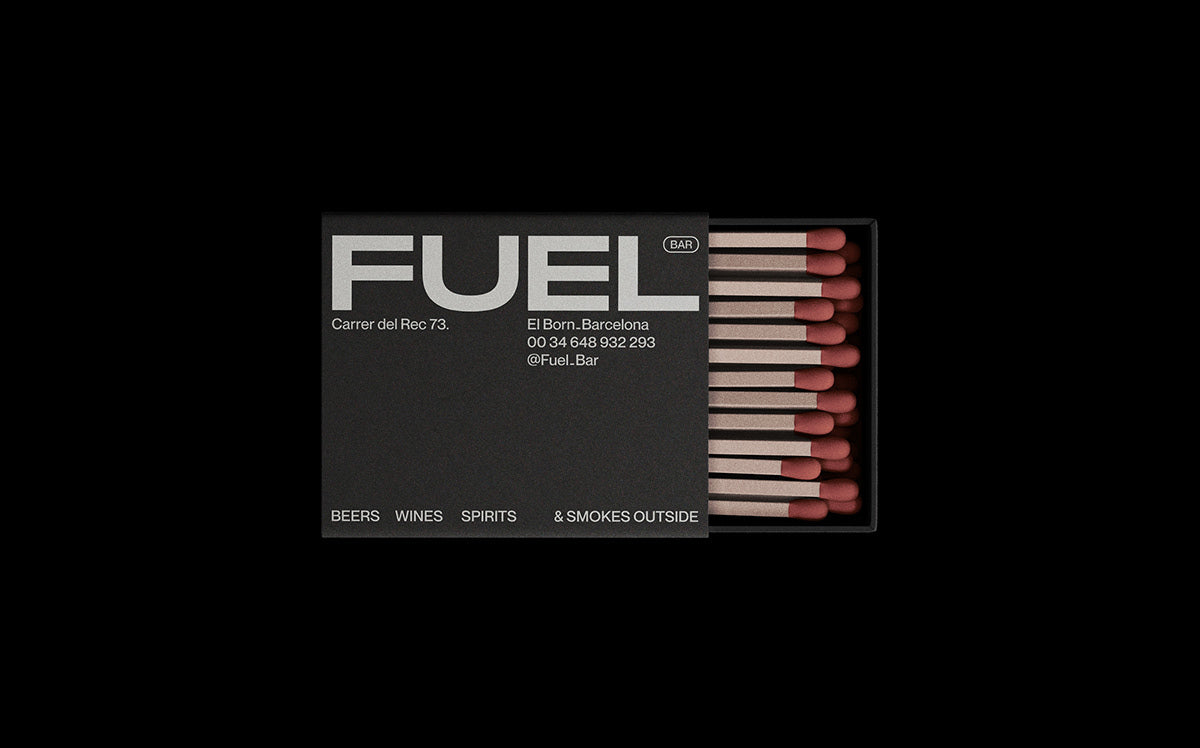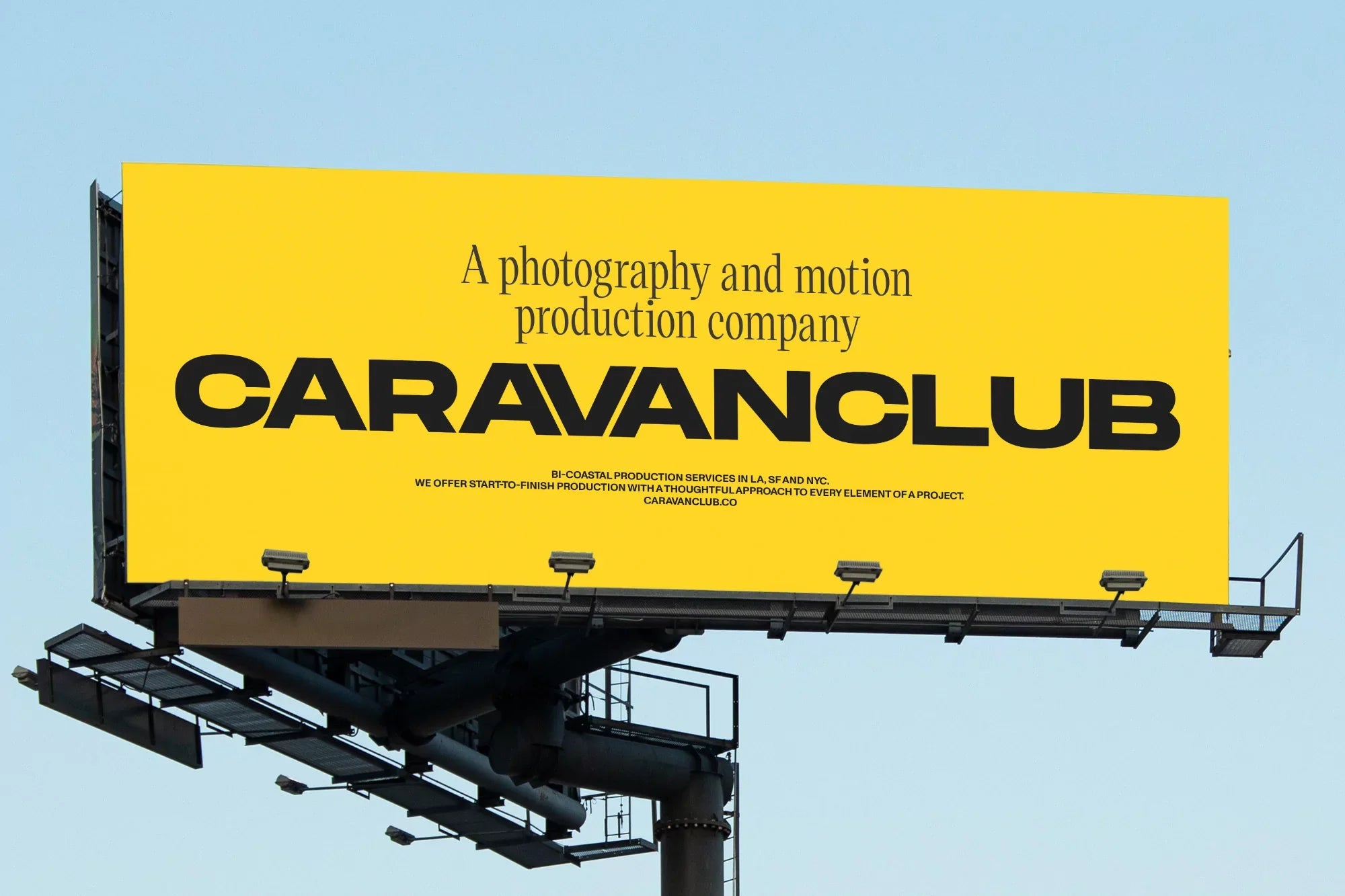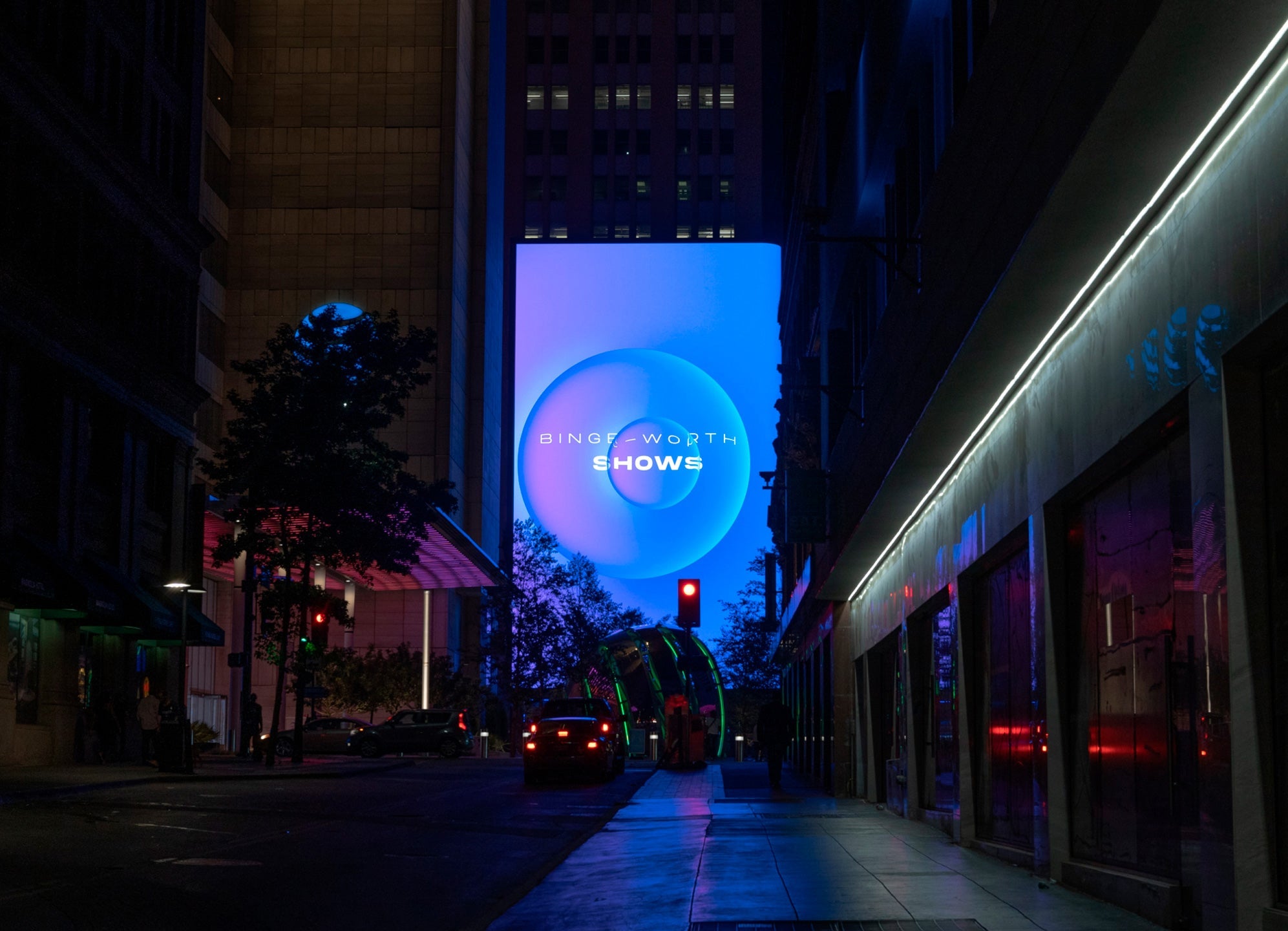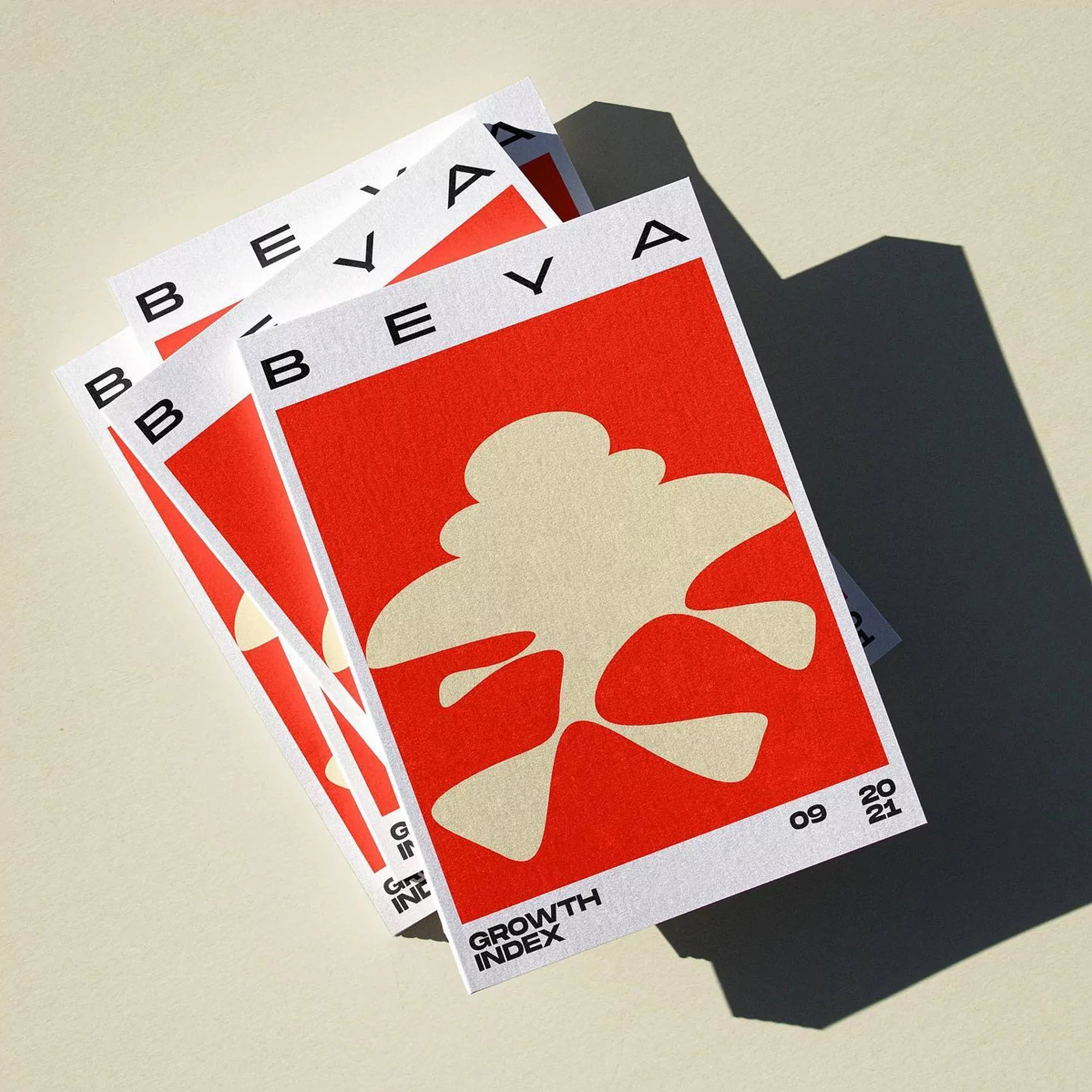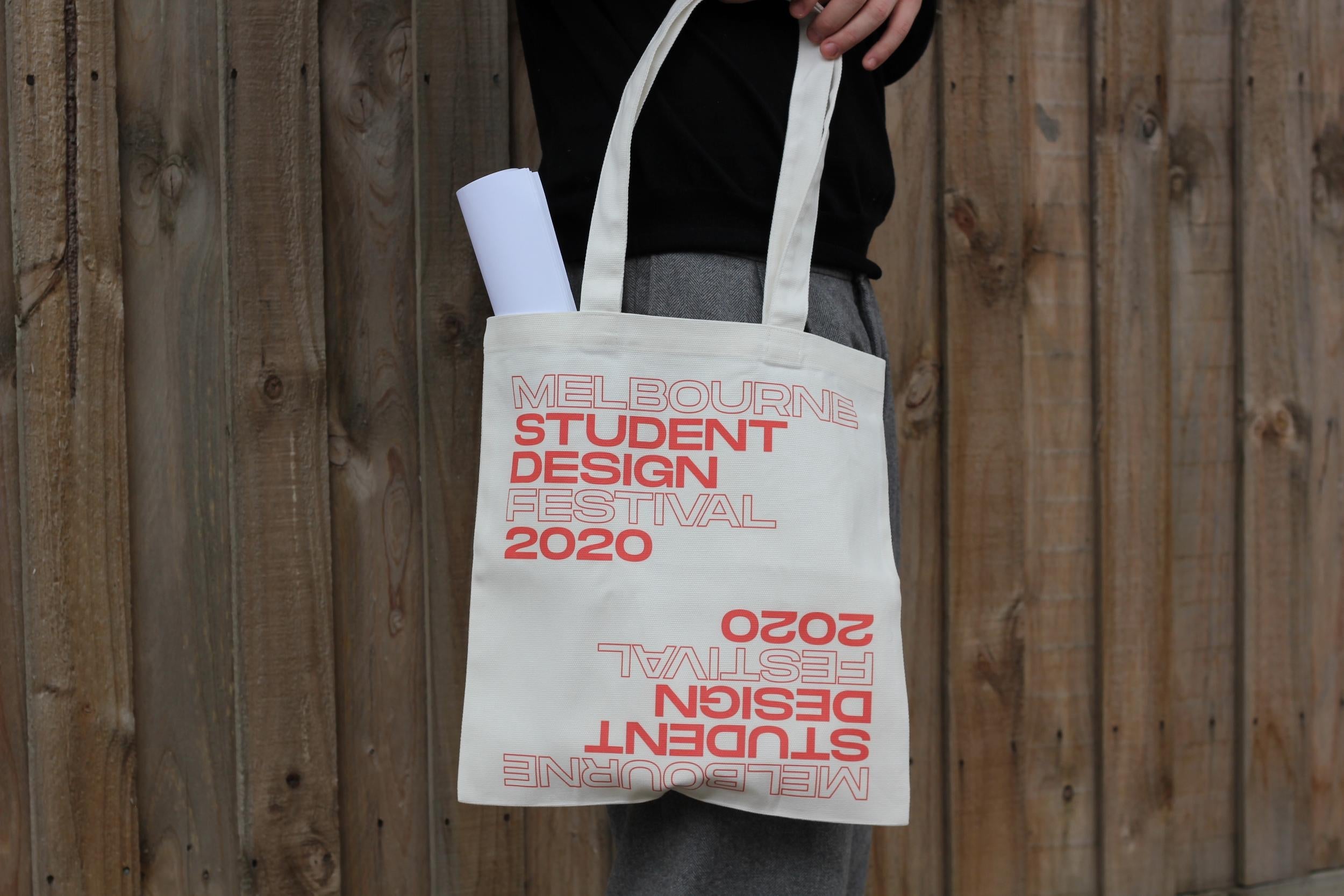
Monument Condensed
Raw beauty & brutalist forms.
Monument Condensed
A go-to for impactful design, attention-grabbing titles, and refined typographic compositions that demand presence.
With its major 2025 update, Monument has grown into one of Pangram Pangram’s most expansive and adaptable font families. It now includes five distinct widths, each available in nine carefully tuned weights, across both upright and italic styles, offering designers an exceptional range of typographic control.
Monument is a commanding grotesk typeface inspired by the raw geometry and visual weight of brutalist architecture. Originally created to deliver bold typographic statements, it has evolved into one of Pangram Pangram’s most versatile and expansive font families, perfect for designers who seek both strength and control in their typographic tools. Following a major 2025 update, Monument now features an impressive five widths, each available in nine weights, complete with both upright and italic styles. This gives designers a powerful typographic system capable of adapting to everything from ultra-tight headlines to expressive, wide-format layouts. Whether you're building brand identities, crafting editorial spreads, or developing digital interfaces, Monument offers the structural confidence of a grotesk with the flexibility of a modern workhorse. Its ability to shift from ultra-condensed to generously wide ensures responsive performance across screen sizes, print formats, and tone shifts, from brutalist minimalism to sophisticated high-impact design. Engineered for legibility, presence, and scale, Monument thrives in logos, titles, web typography, packaging, and display design, where clarity meets aesthetic force. Its architectural DNA gives it a uniquely grounded character, imposing yet refined, familiar yet distinctive. For creatives working across platforms and disciplines, Monument is a type system built to make an impression, and hold it.
Monument Condensed's Features
Alternate A V W a g
Standard ligatures
Alternate K R
Take it to the limit
Monument is a powerful grotesk typeface inspired by the raw beauty and imposing forms of brutalist architecture. Originally designed to make bold statements, it's become a go-to for impactful design, attention-grabbing titles, and refined typographic compositions that demand presence.
With its major 2025 update, Monument has grown into one of Pangram Pangram’s most expansive and adaptable font families. It now includes five distinct widths, each available in nine carefully tuned weights, across both upright and italic styles, offering designers an exceptional range of typographic control.
Whether you’re crafting branding systems, editorial layouts, or digital experiences, Monument’s versatility and structure make it a workhorse with edge. From ultra-compressed to comfortably wide, it flexes confidently across screens and scales.